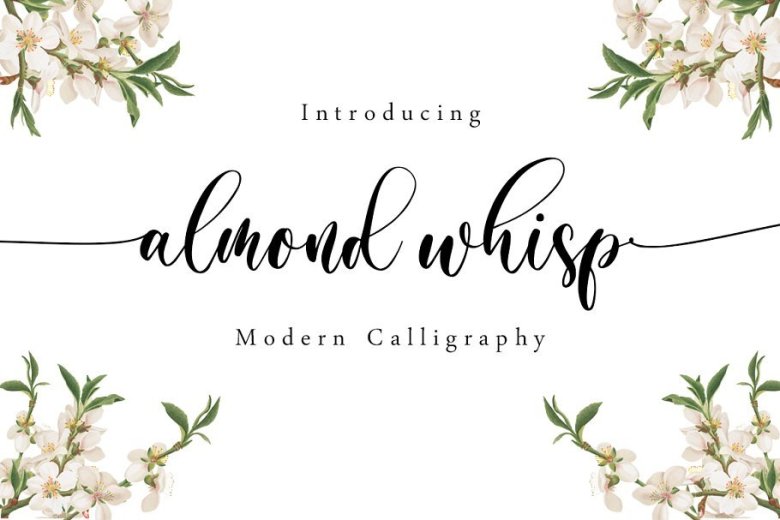
Almond Whisp Modern Calligraphy Font
Introducing Almond Whisp Font, a sweet modern calligraphy script typeface made of all things lovely and sweet. It’s perfect for branding, wedding invites, logos, magazines, photo overlays, blogs and so much more!
Almond Whisp Font includes a full set of beautiful uppercase and lowercase letters, numerals, punctuations and ligatures. It also includes beginning and ending swashes as alternate letters.